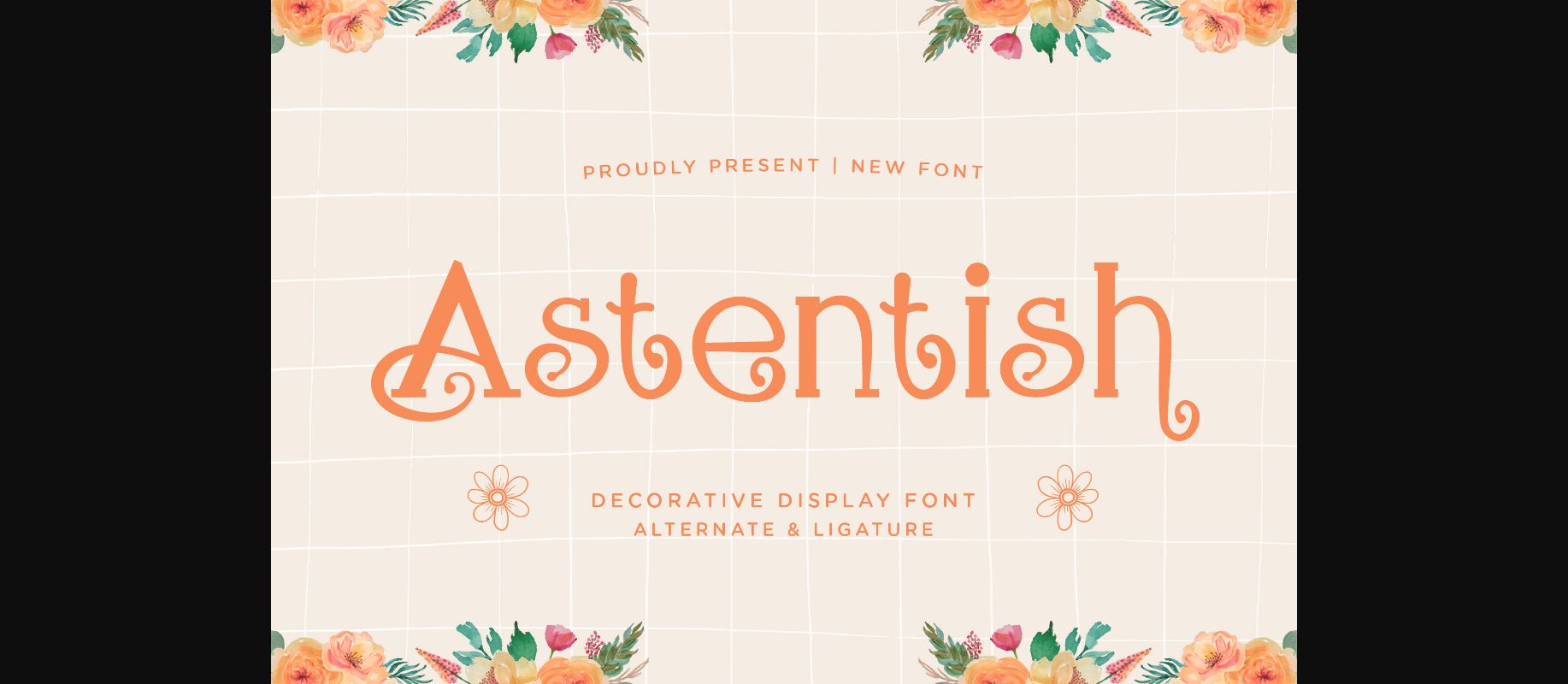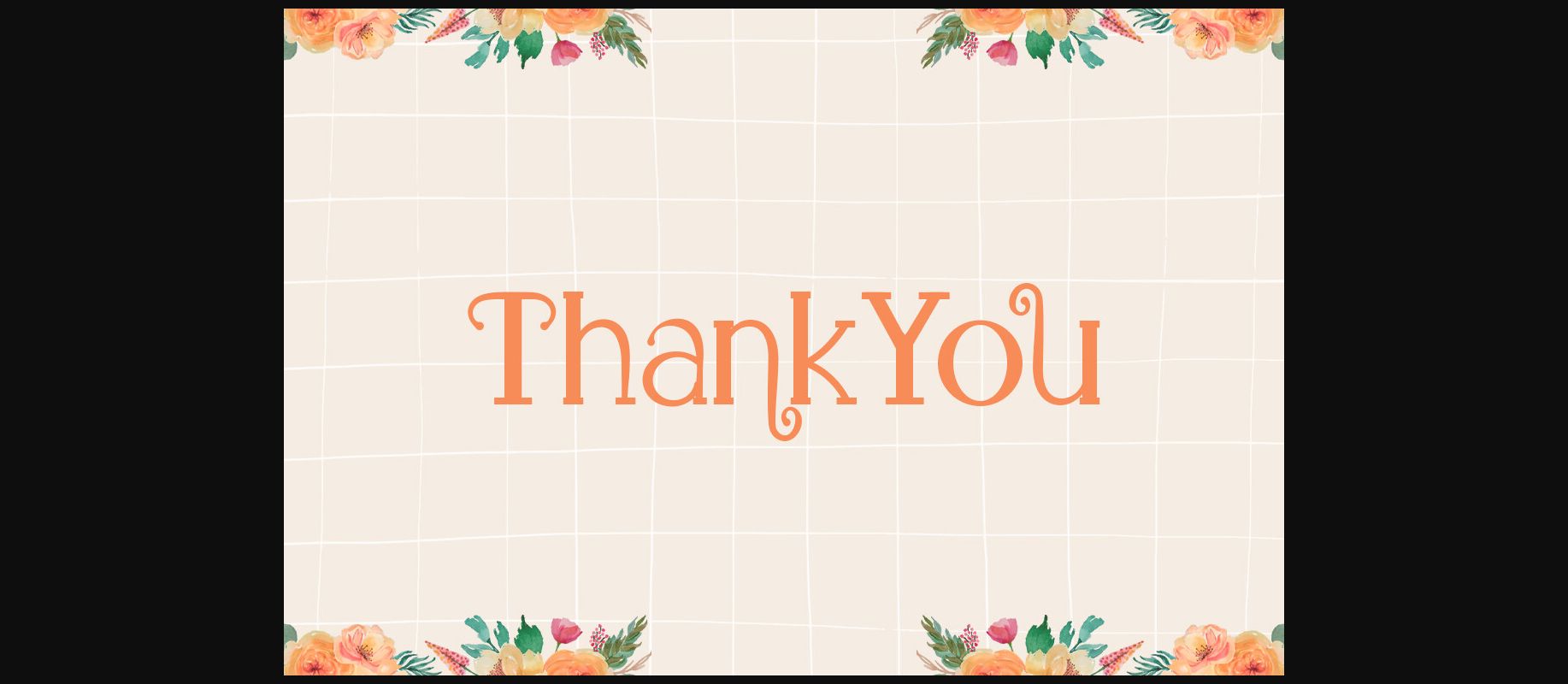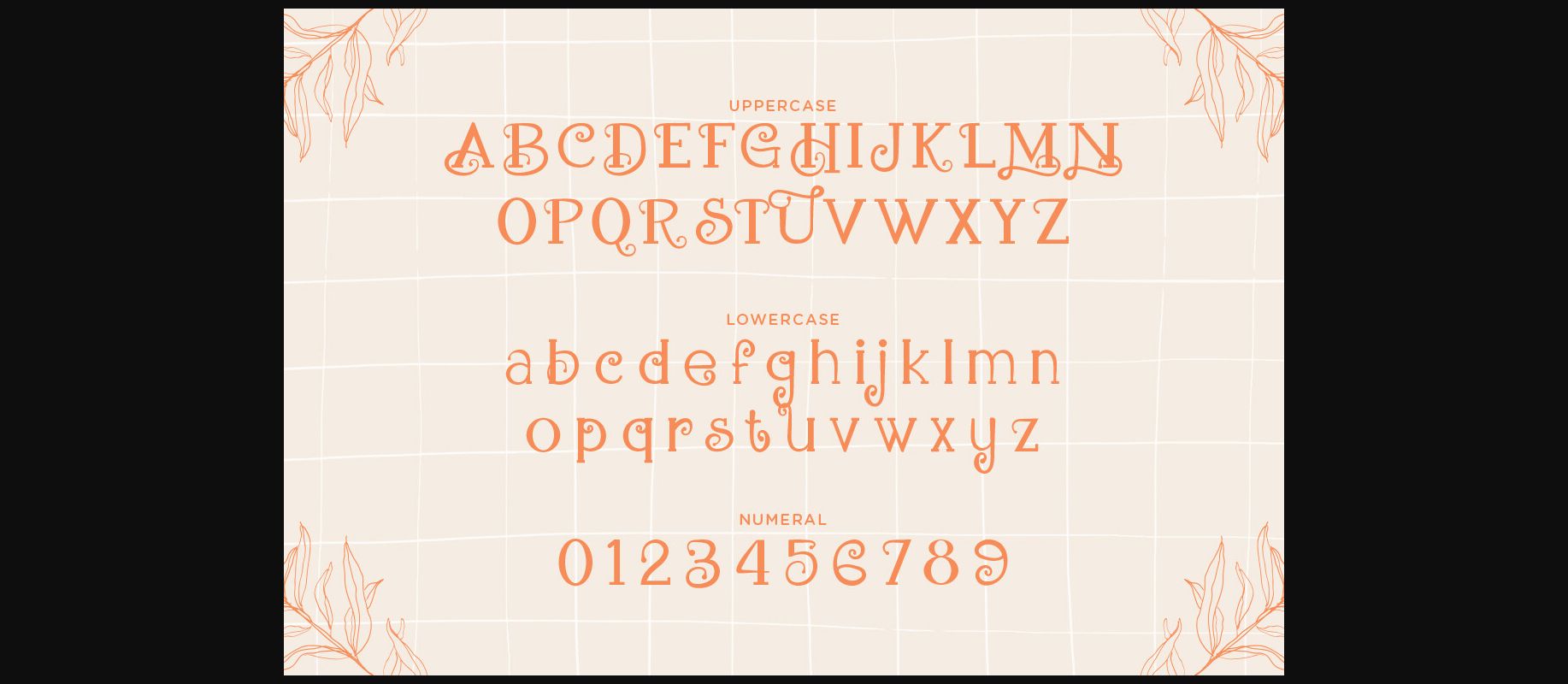
About Astentish Font
Introducing “Astentish” – a decorative display font that adds a whimsical touch and creative flair to your designs.
With its unique and ornamental letterforms, “Astentish” brings a playful and artistic element to any project. Each character is intricately designed to infuse your designs with a sense of creativity, making it perfect for decorative branding, imaginative posters, artistic packaging, and more.
Embrace the artistic charm of “Astentish” as it effortlessly elevates your designs. Whether you’re creating eye-catching logos, whimsical quotes, vibrant product labels, or captivating social media graphics, this font will captivate your audience with its decorative and expressive style.
Celebrate the joy of creativity with “Astentish” and let your designs flourish with artistic expression!
With its unique and ornamental letterforms, “Astentish” brings a playful and artistic element to any project. Each character is intricately designed to infuse your designs with a sense of creativity, making it perfect for decorative branding, imaginative posters, artistic packaging, and more.
Embrace the artistic charm of “Astentish” as it effortlessly elevates your designs. Whether you’re creating eye-catching logos, whimsical quotes, vibrant product labels, or captivating social media graphics, this font will captivate your audience with its decorative and expressive style.
Celebrate the joy of creativity with “Astentish” and let your designs flourish with artistic expression!